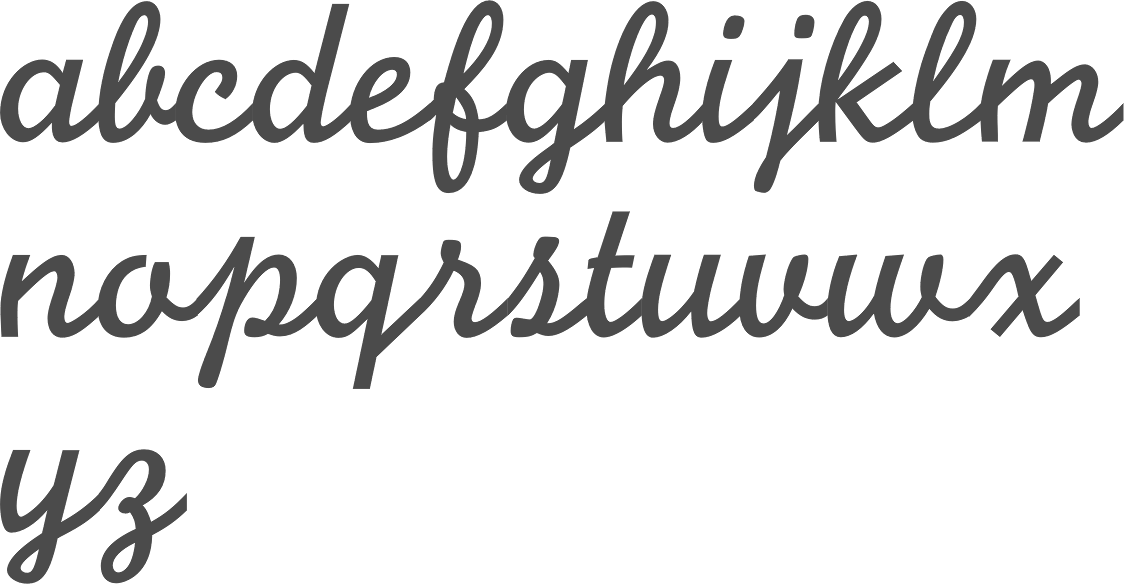
Incredible Monoline Fonts Ideas
Incredible Monoline Fonts Ideas. Web about foundry monoline font family. Click the plus button in the bottom left corner of.
Popo Monoline Sans Serif Font (Free).
Web dream story is a monoline handbrushed font. Foundry monoline is an elegant, modern typeface family eminently suited for use in identity, editorial, and advertising use. In script > old school.
Web Rampage Monoline By Creatype Studio.
Monoline fonts and typefaces for free download. The smooth characteristics and readability of these fonts make them easy to work with. The balance in every word is truly daylosta font jul.